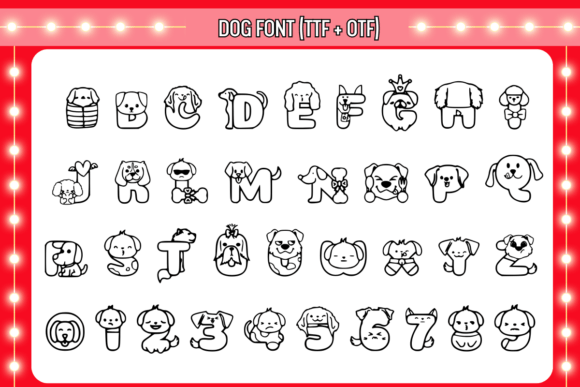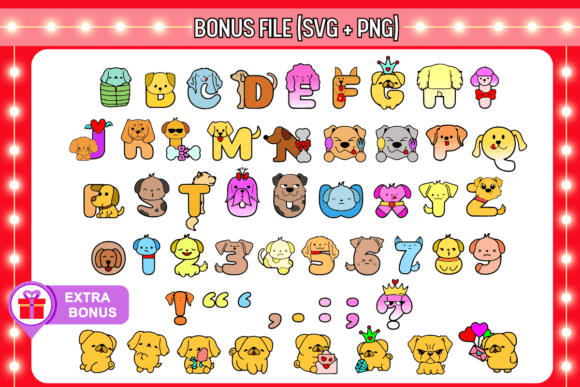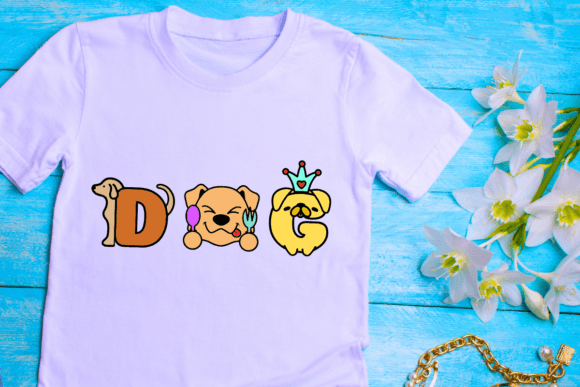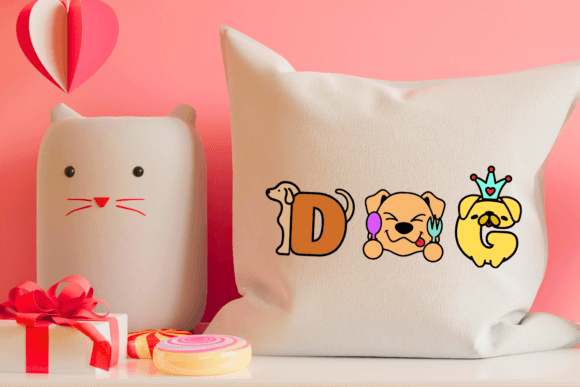
The Paw-fect Font: A Deep Dive into Dog Font
I’ll never forget the time I was working on a project for a pet store client, and they asked me to create a fun, playful design that would appeal to dog lovers of all ages. As I was browsing through my font library, I stumbled upon the Dog Font, and it was love at first sight! Each letter was creatively shaped like a dog, and I knew I had found the perfect fit for the project. In this article, I’ll share my experience with the Dog Font, its features, and how to make the most of it in your designs.
So, what do I love about the Dog Font? Here are a few things that make it stand out:
- ✨ Unique and playful design: Each letter is creatively shaped like a dog, making it perfect for dog lovers and playful designs.
- ✅ Easy to read: Despite its decorative nature, the Dog Font is surprisingly easy to read, even in larger blocks of text.
- 🎉 Fun and engaging: The Dog Font adds a touch of whimsy and fun to any design, making it perfect for projects that need a playful twist.
However, there are a few quirks to be aware of:
- 🤔 Limited use cases: The Dog Font is a decorative font, so it’s not suitable for body text or formal designs.
- ⚠️ May not work well in small sizes: The Dog Font’s playful design can become distorted or lost in smaller sizes, so it’s best used in larger sizes or headings.
Exploring OpenType Features
One of the best things about the Dog Font is its OpenType features. With glyphs and stylistic alternates, you can customize your text to fit your design needs. Here are a few tips:
- Use glyphs to add decorative elements to your text, such as dog bones or paw prints.
- Experiment with stylistic alternates to change the look of your text, such as using a different dog design for each letter.
The Dog Font was designed by a creative team who wanted to bring a touch of fun and playfulness to the world of typography. Inspired by their love of dogs and design, they created a font that’s perfect for dog lovers and playful designs. Whether you’re a designer, crafter, or creative hobbyist, the Dog Font is sure to bring a smile to your face.
| Is the Dog Font suitable for body text? | No, the Dog Font is a decorative font and is best used for headings or titles. It’s not suitable for body text or formal designs. |
| Can I customize the Dog Font? | Yes, with OpenType features like glyphs and stylistic alternates, you can customize the Dog Font to fit your design needs. |